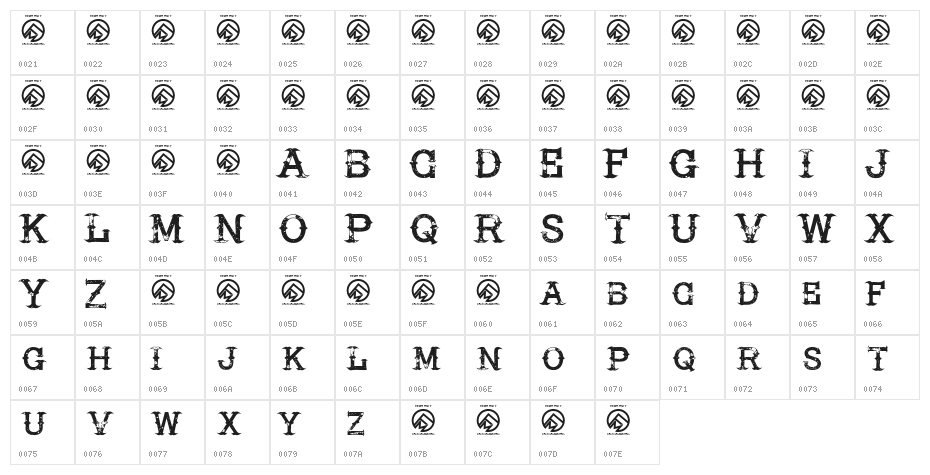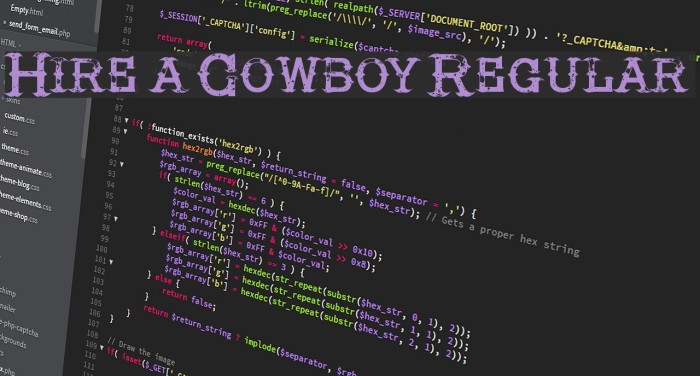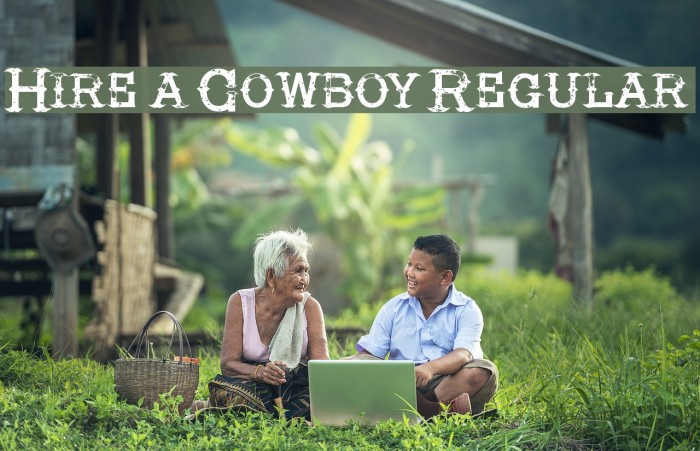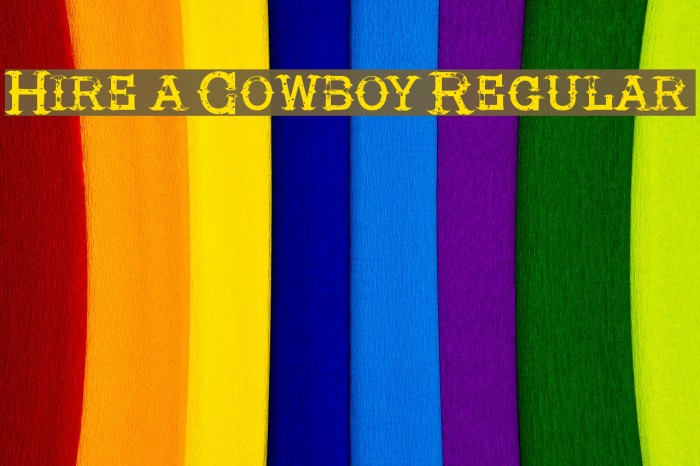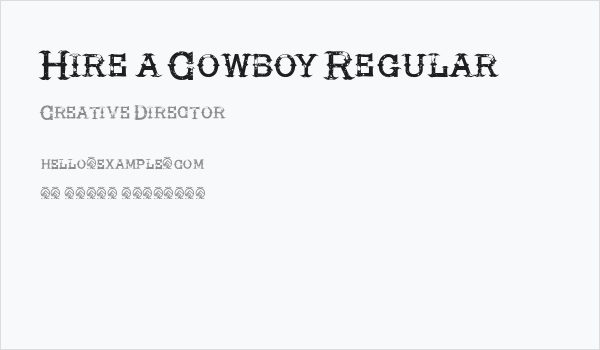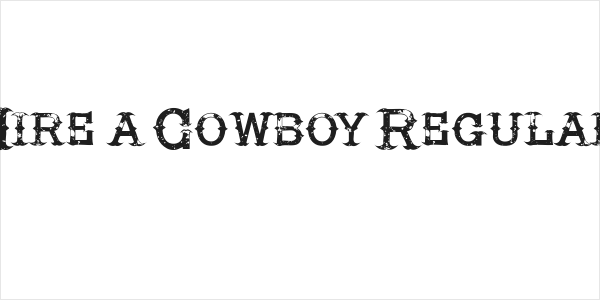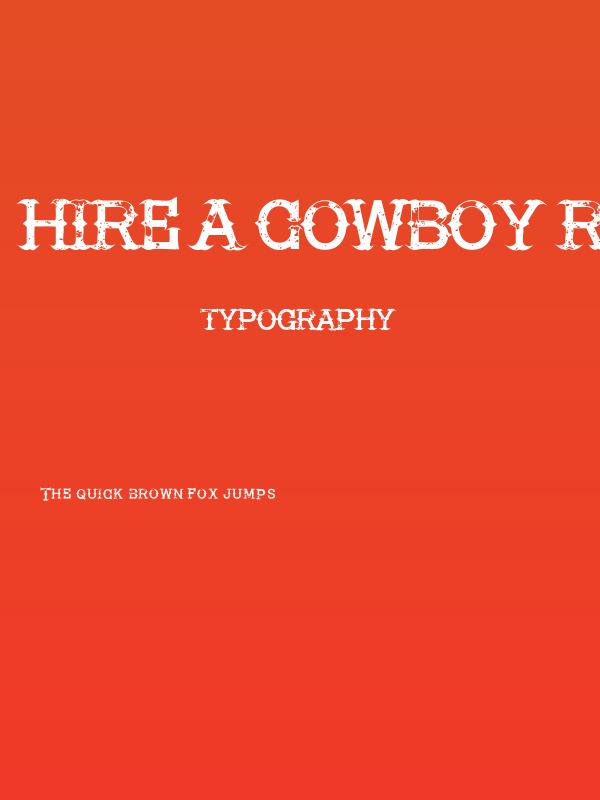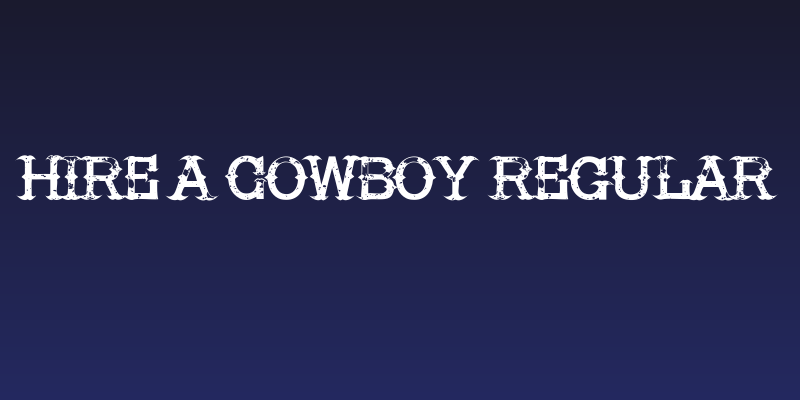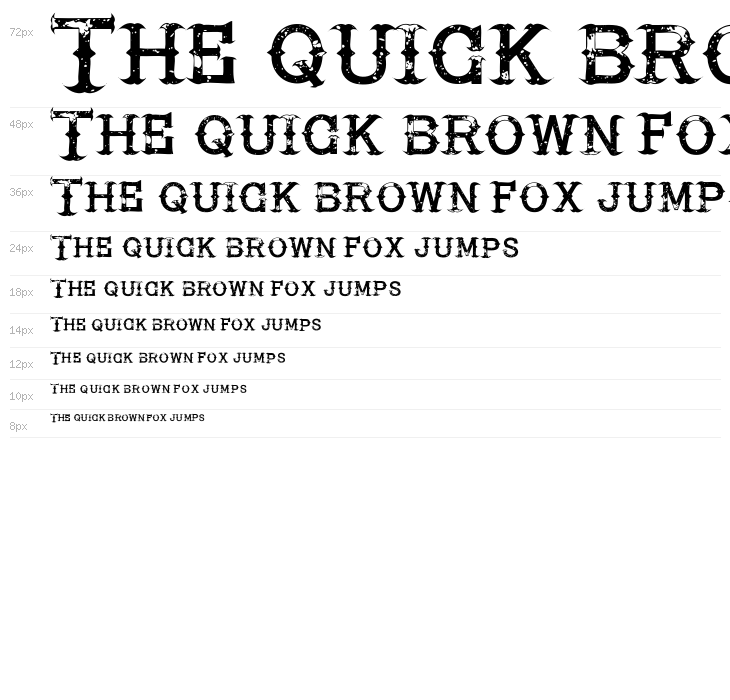
Hire a Cowboy Regular Font
Hire a Cowboy Regular Description
This font features a rugged, distressed style that evokes a sense of the Wild West. The characters are bold and have a weathered appearance, with rough edges and a textured look that suggests wear and tear. This design gives the font a unique, vintage feel, reminiscent of old western signage or cowboy branding. The uppercase letters are prominent and commanding, making them ideal for attention-grabbing headlines or logos. The overall aesthetic is both rustic and decorative, capturing the essence of a bygone era with a modern twist.
| Proposed Projects | Ideal for western-themed posters, vintage branding, rustic signage, and creative logo designs. |